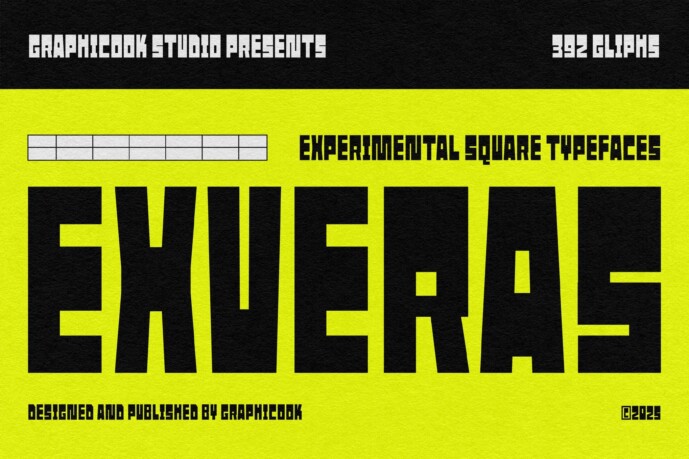
Exveras Font
Designer: graphicook
Exveras is an experimental font featuring boxy, geometric shapes that create a futuristic look. Ideal for technology branding, games, posters, and logos, it perfectly complements modern, brutalist, or cyberpunk design styles.